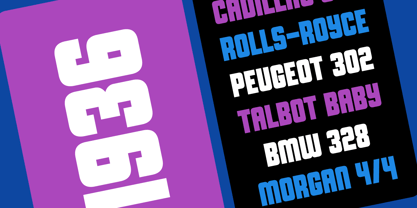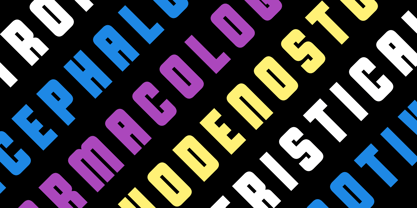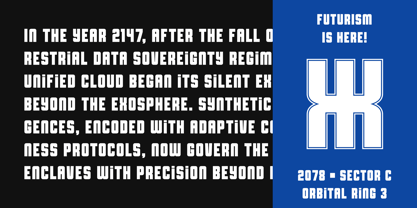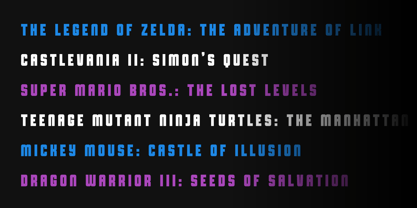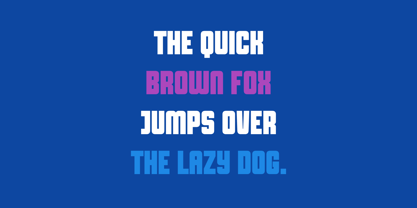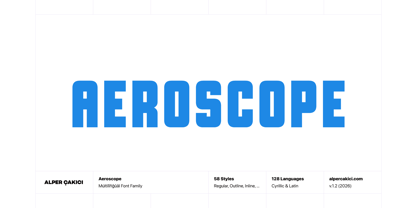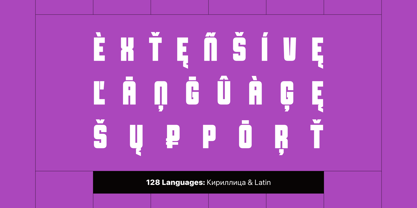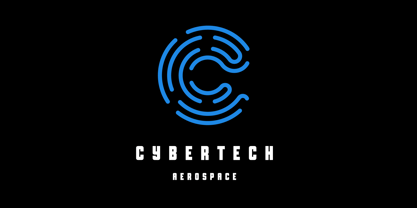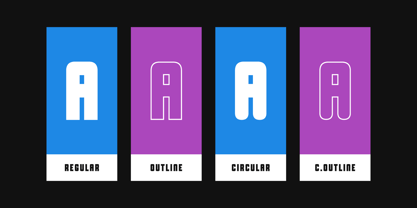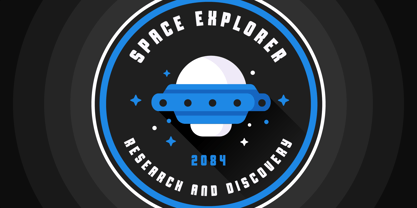
Aeroscope
The Aeroscope Font Family was designed by Alper Çakıcı and published by AlperCakici. Aeroscope contains 1 styles.
Aeroscope - A Display Font : Aeroscope is a carefully crafted display font. It has Extended Latin and Cyrillic characters. It created for poster, web, brand and social media designs.